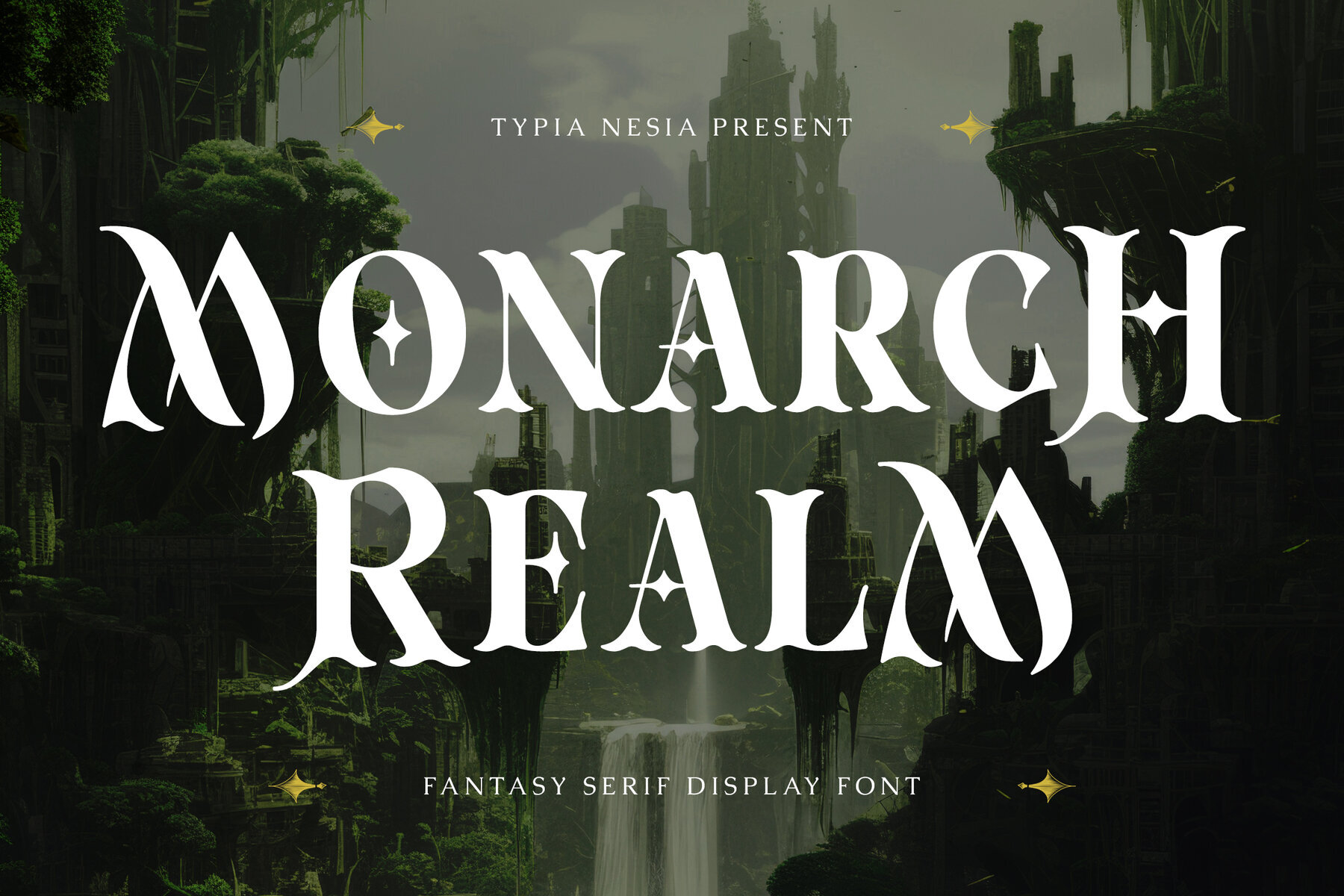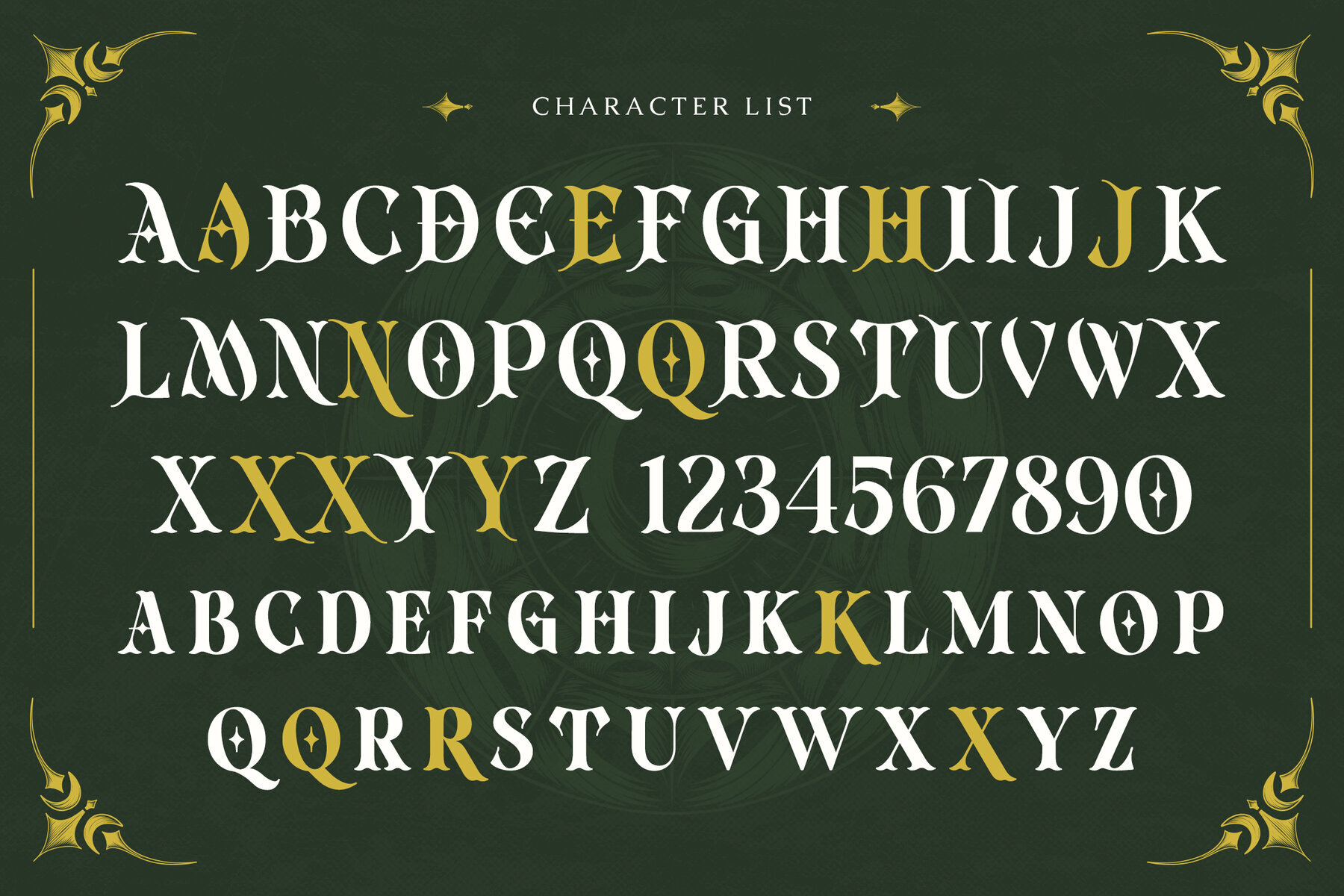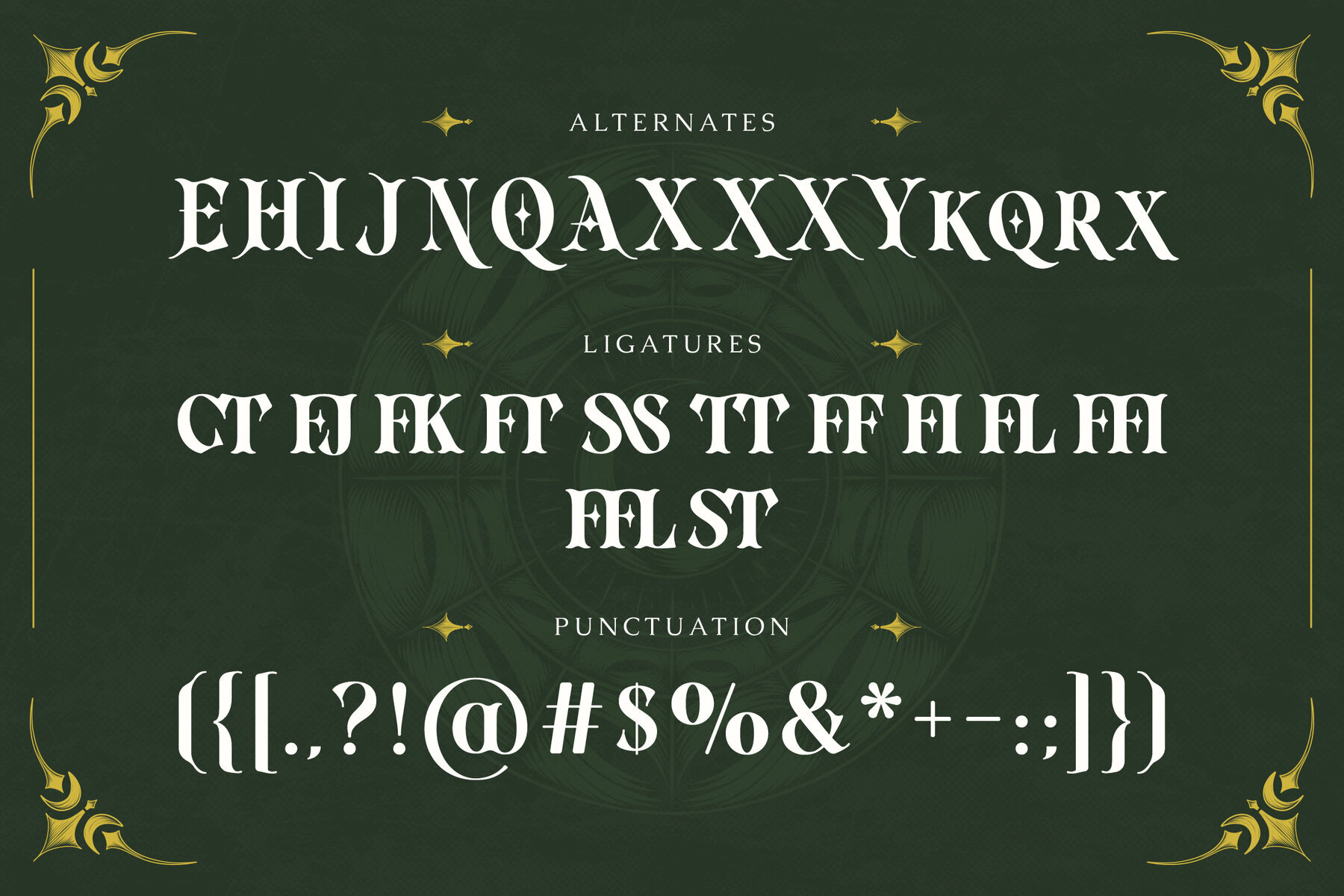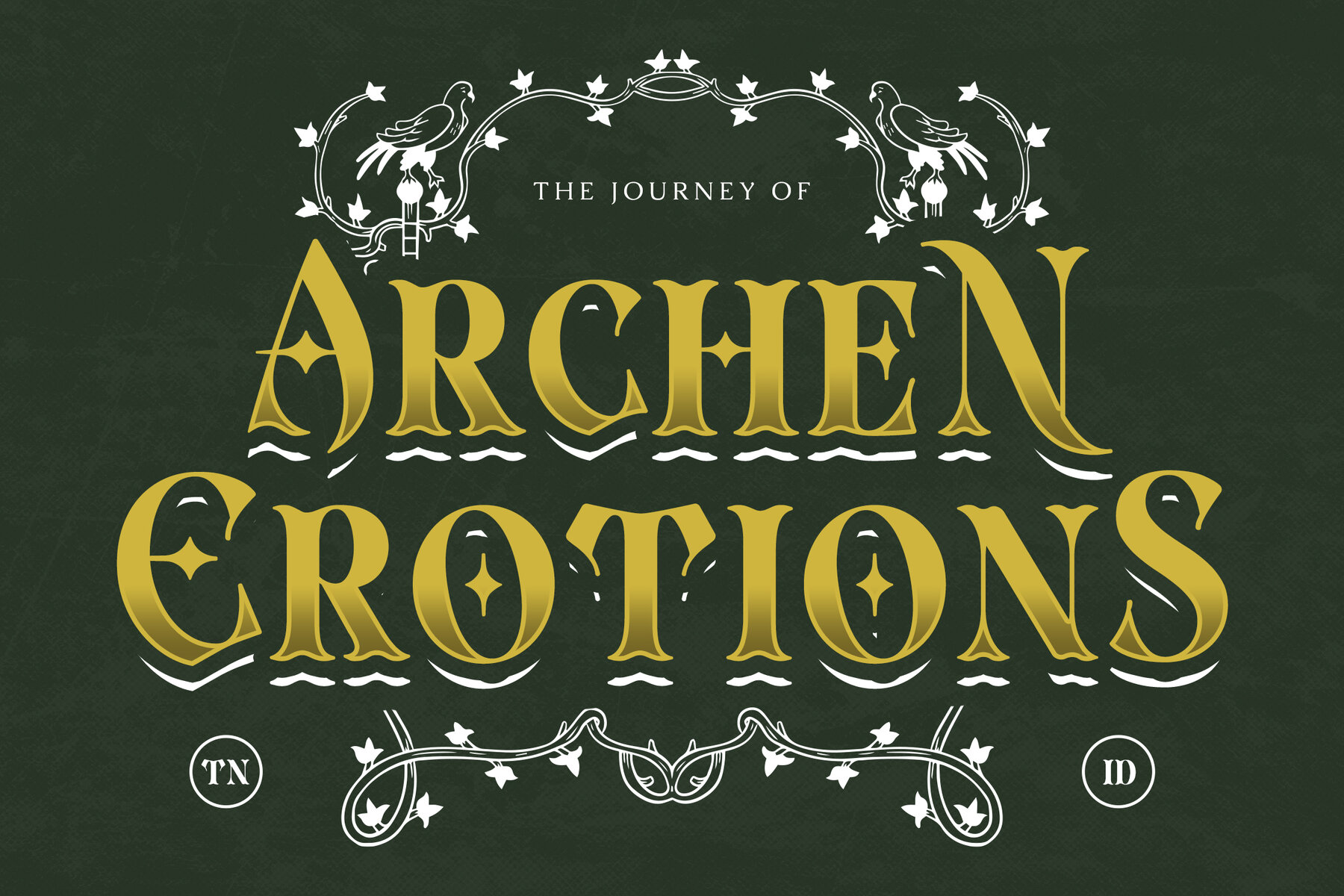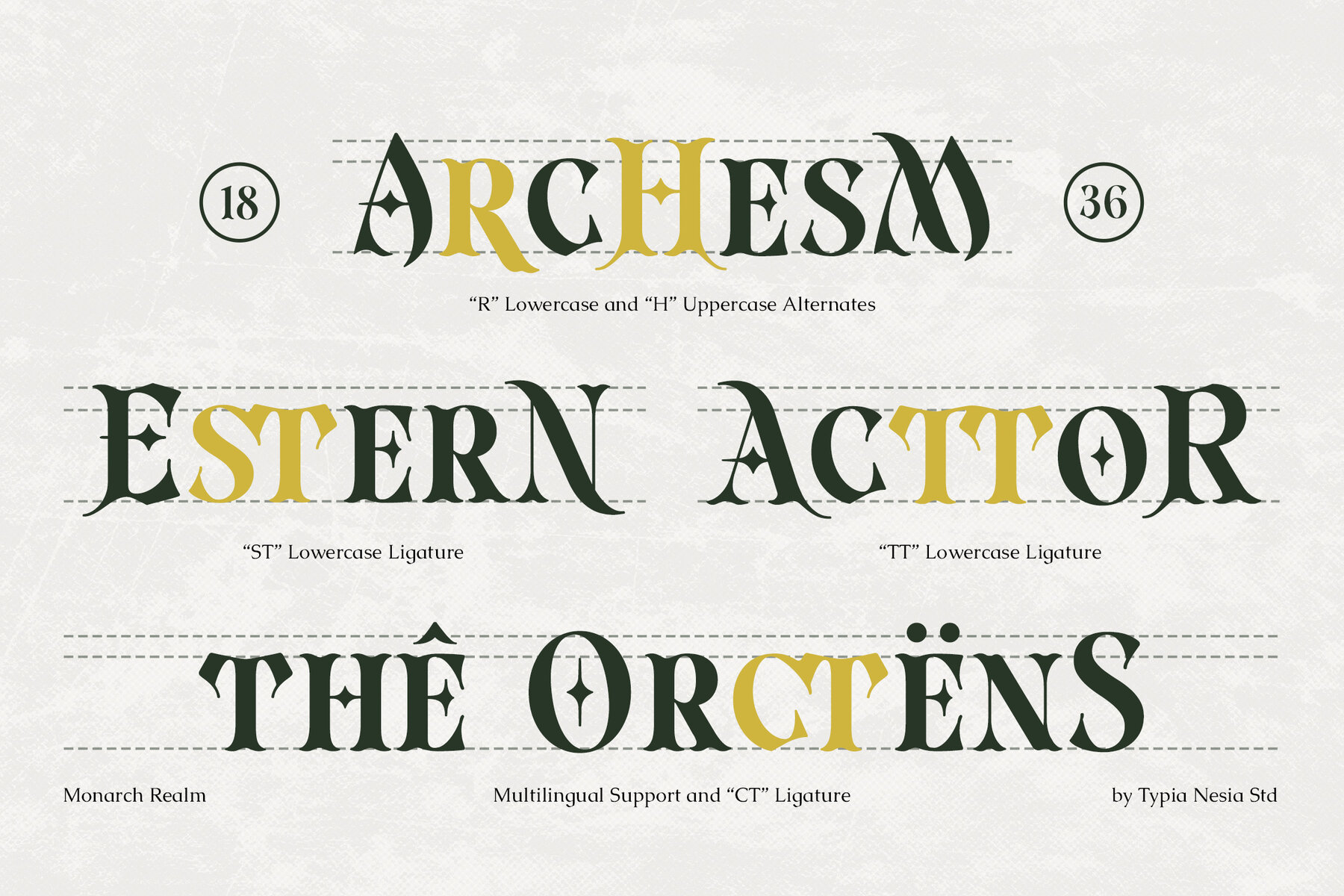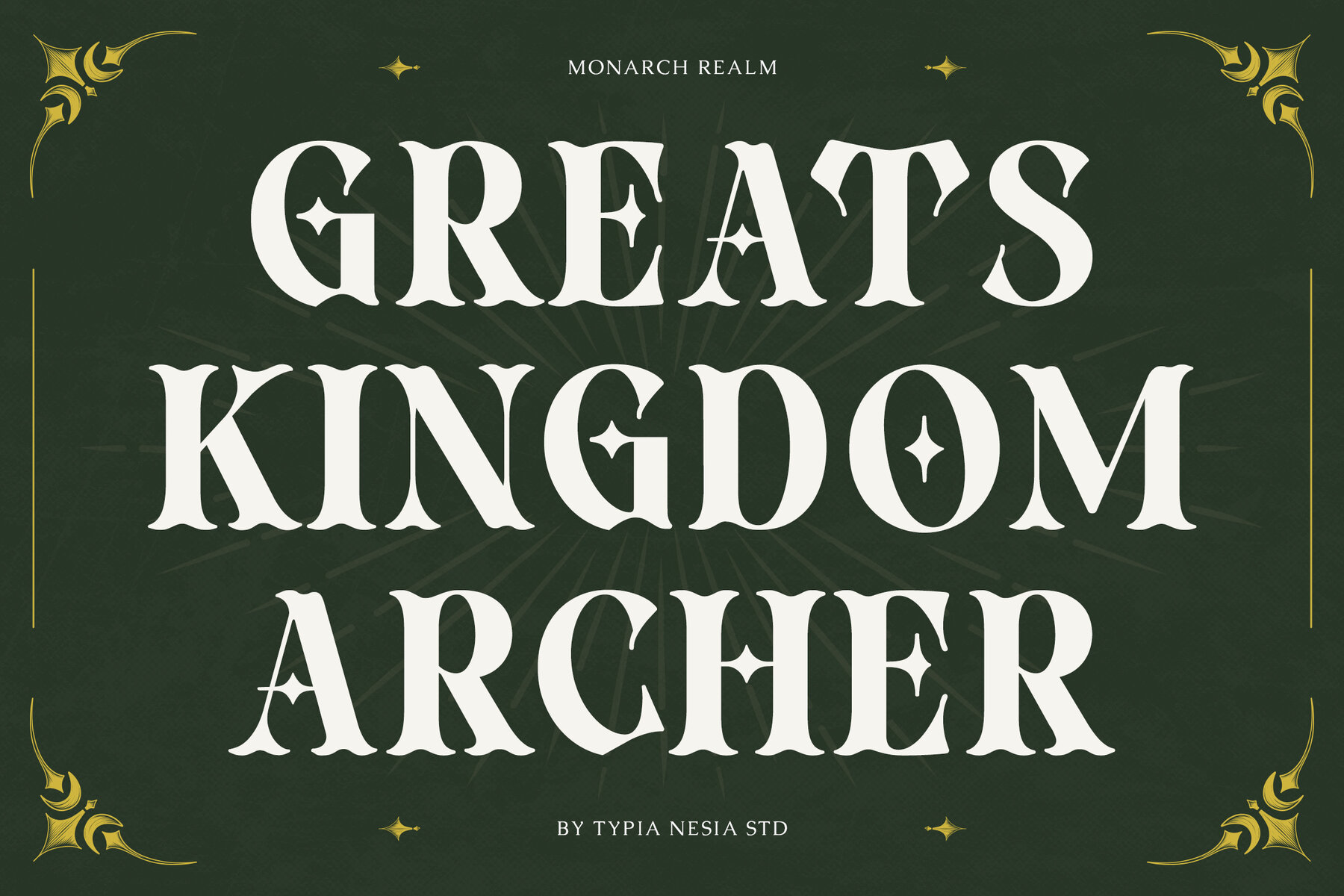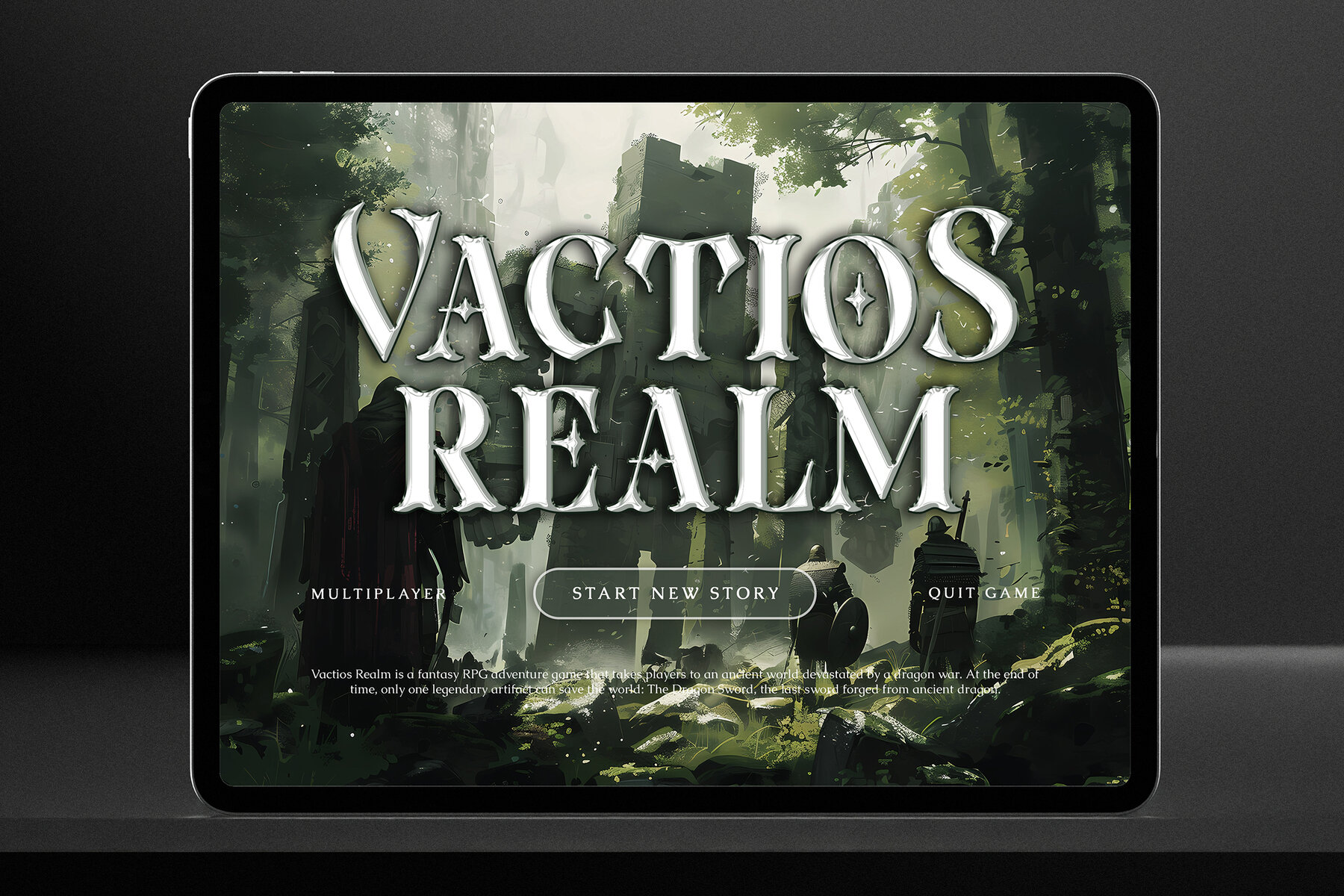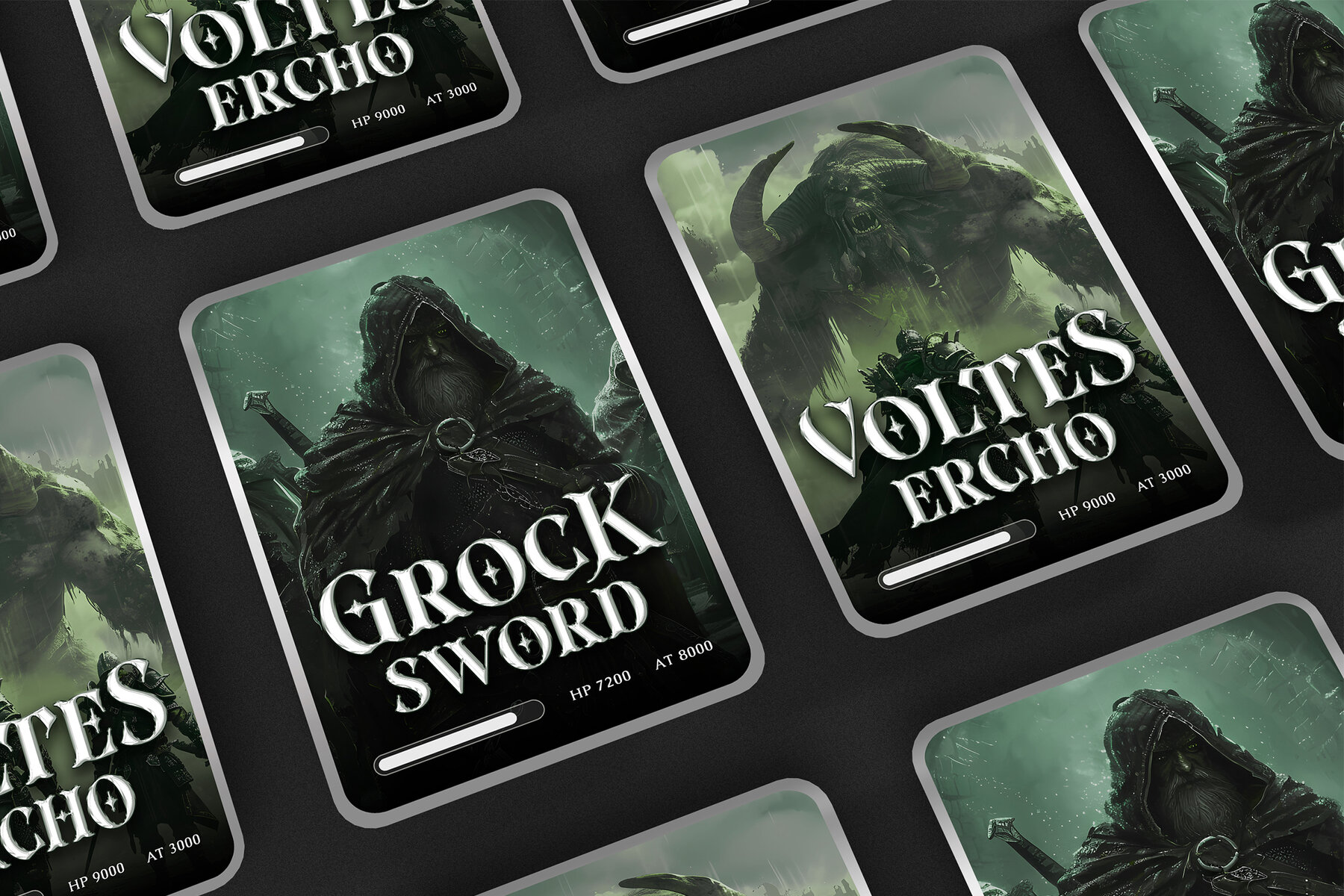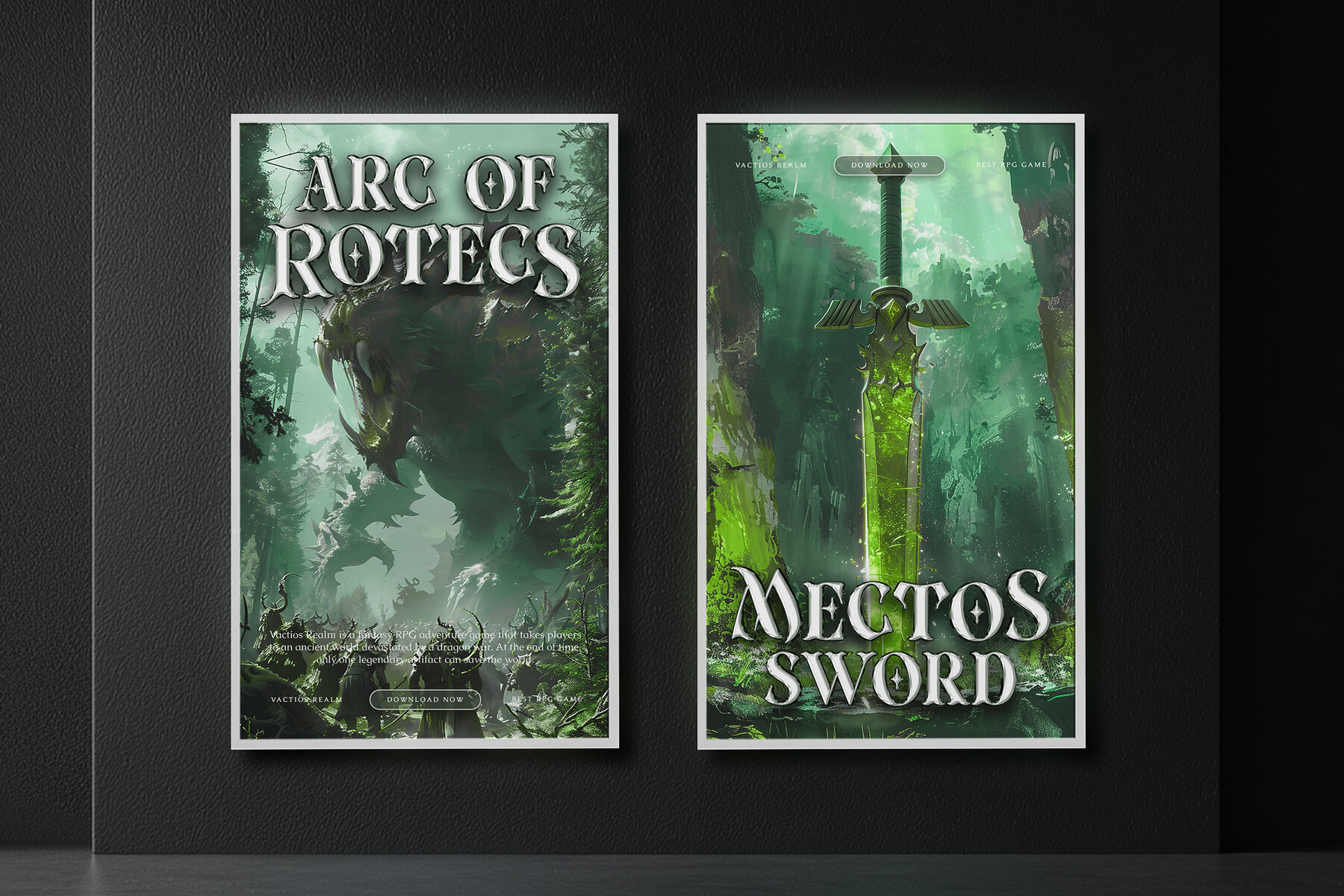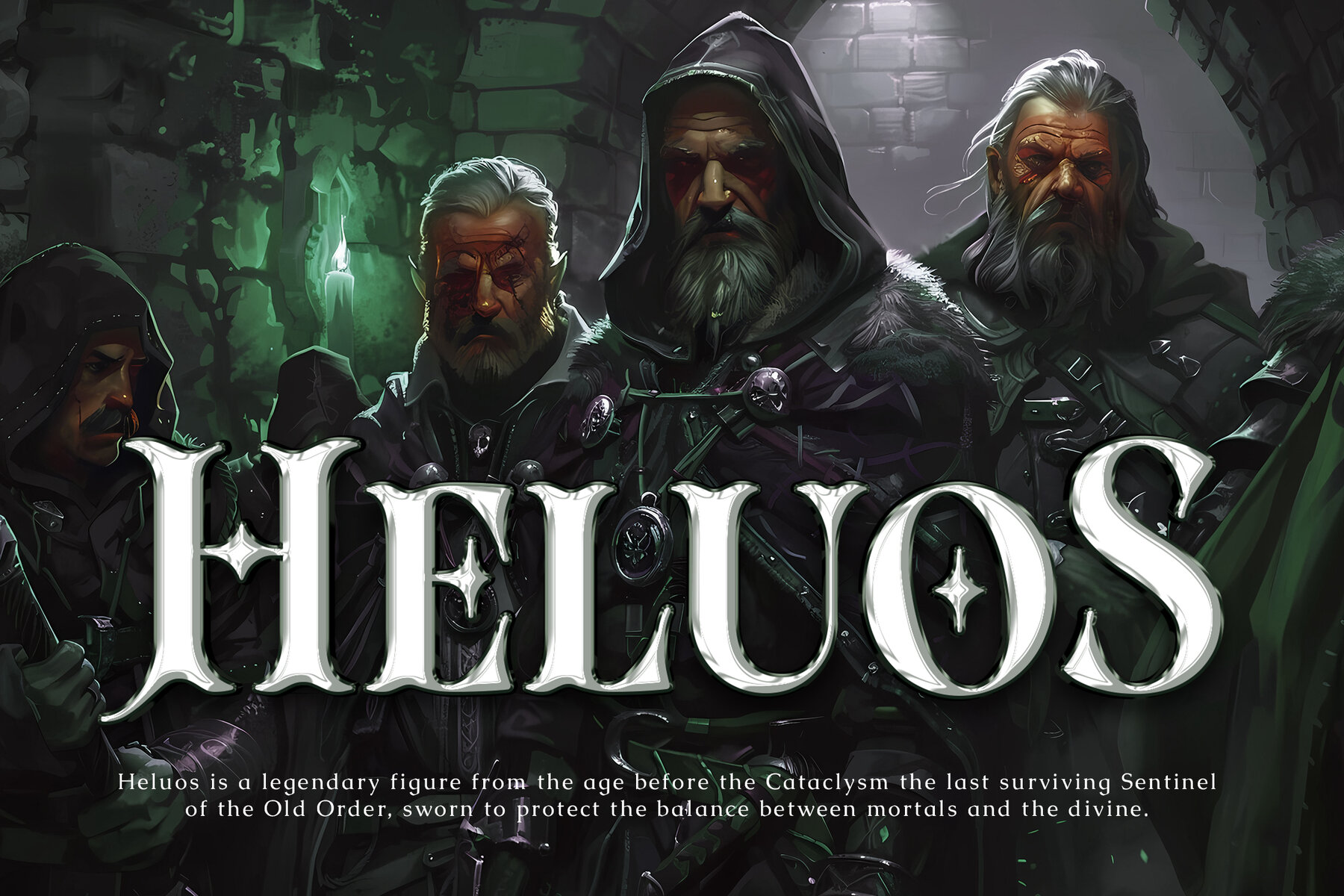
Monarch Realm Font
Monarch Realm Regular
Monarch Realm captures classic fantasy and modern elegance in a single serif display font. Inspired by a blend of rich historical motifs and magical themes, this typeface lends a regal tone suited for both traditional and contemporary design. The refined letterforms deliver a sense of luxury and authority, turning ordinary projects into sophisticated statements. This font is crafted to command attention on posters, movie titles, advertising, immersive game interfaces, bold logos, and novel covers. Its ornate details support striking headlines and branding, while ensuring legibility. Monarch Realm offers designers a balance between decorative flair and clarity, perfect for any project that invites a sense of enchantment or grandeur.Monarch Realm – A Classic Fantasy Serif Font for Iconic Visual Impact